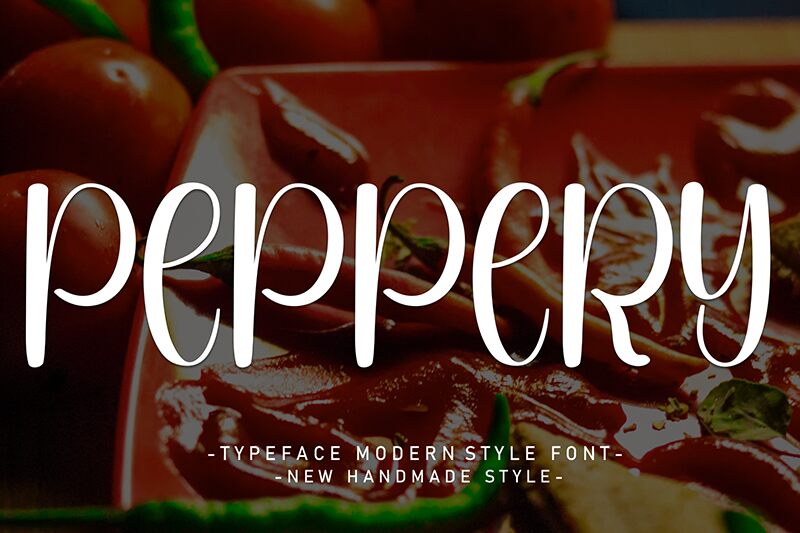
Peppery
Peppery font by Andi Moz is a sweet and friendly handwritten display font with a brush style. Cute and fun, this typeface serves as the perfect element for designs in need of a playful touch.
Birthdays, weddings, cards, posters, social media posts, packaging projects… the possible use cases of this free font are endless! You can use it in headings as well as in body text.